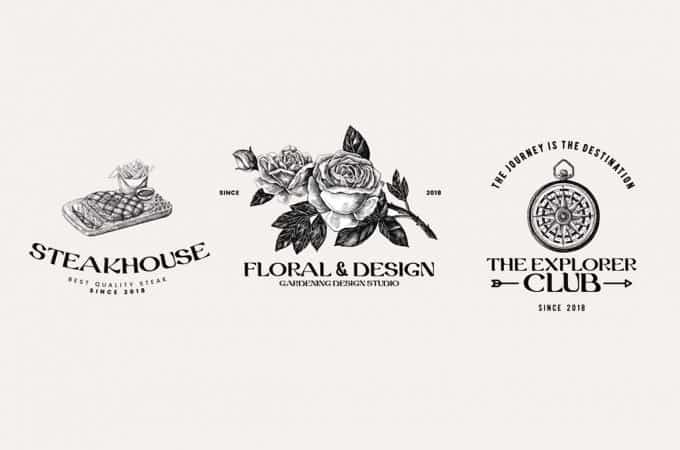
Grand Duke Serif Font offers many possibilities to be applied in many graphic or editorial projects. Lighter weights are suitable for body text, and the heavier weights are perfect for striking headlines. Grand Duke is perfect for display projects such as quoted text, postcard, logo, presentation, nature-theme, product packaging, magazine and much more. It’s also perfect for beautiful and botanical themed – or a stylish text overlay to any background image.